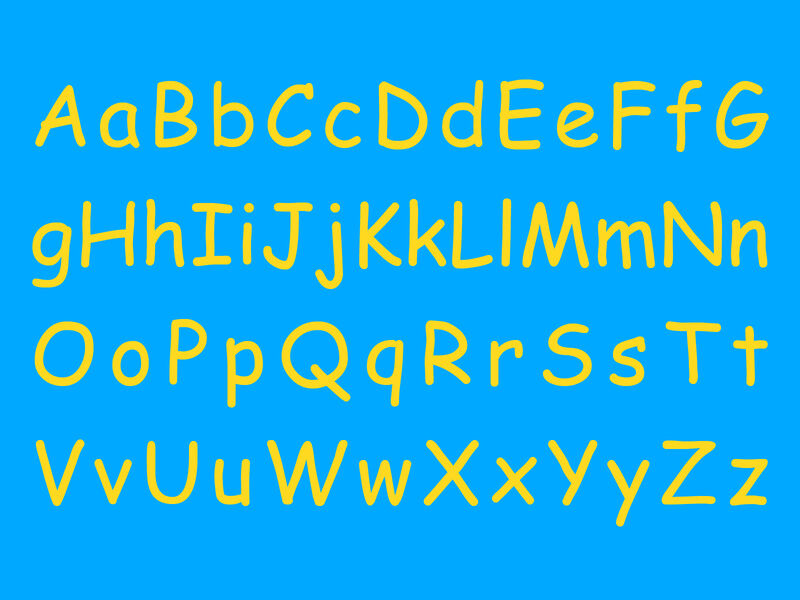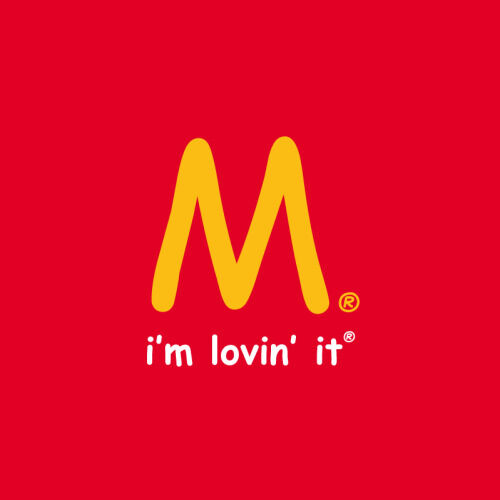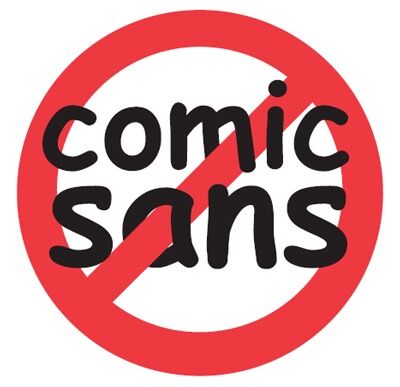
Comic Sans Schriftart
Comic sans schriftart. Comic Sans MS is a sansserif casual script typeface designed by Vincent Connare and released in 1994 by Microsoft CorporationIt is a nonconnecting script inspired by comic book lettering, intended for use in informal documents and children's materials The typeface has been supplied with Microsoft Windows since the introduction of Windows 95, initially as a supplemental font in the Windows. The Comic Sans typeface, one of Microsoft's most popular designs, has received a makeover courtesy of Monotype Imaging The company has introduced the fourfont Comic Sans Pro family of typefaces Featuring elements such as speech bubbles and cartoon dingbats, Comic Sans Pro extends the versatility of the original Comic Sans, designed by Vincent Connare for Microsoft in 1994. Download Wingdings font for PC/Mac for free, take a testdrive and see the entire character set Moreover, you can embed it to your website with @fontface support.
That typeface has more than 2800 meticulously made glyphs spread nonetheless seven beautiful weights from extra light to black And it well created with exceptionally ready sans serif typeface Design Of Comic Sans MS Font The designer has taken the notion from some of the greatest geometric typefaces for growing these exquisite font loved ones. The entire point of Comic Sans is that each letter is totally distinct from the others It’s why people who have dyslexia love this font the irregularlyshaped letters make it easier to break. 4% have severe dyslexia Some fonts have been specifically designed to aid dyslexics, but if you don’t have access to those, Comic Sans is one of the most popular alternatives.
4% have severe dyslexia Some fonts have been specifically designed to aid dyslexics, but if you don’t have access to those, Comic Sans is one of the most popular alternatives. Comic Sans Pro, a typeface good for Tshirt designs Monotype Imaging Comic Sans, the Windows font reviled by font snobs everywhere, has joined the big leagues. Similar free fonts and alternative for Comic Sans MS EMcomicRegular, EMcomicBold, FKR SlurrLife Medium, Attari_Salees, SKElementary, Children Regular, Pro.
Recently, Instagram added to its Stories an option that looks a lot like Comic Sans, a font design people have long derided A campaign to ban the font has been afoot online since 1999 “Using Comic Sans is like turning up to a blacktie event in a clown costume,” the campaign’s cofounder Holly Combs said in an interview But, as Lauren Hudgins argues for the Establishment, the agreed. On this page you can download the font Comic Sans MS version Version 210, which belongs to the family Comic Sans MS (Regular tracing) This font belongs to the following categories cyrillic fonts, decorative fonts, latinic fonts Font size only 123 Kb. Sans Try Not To Laugh Challenge Undertale Comic Dub Compilation Video Production Sans Comic TV Original Talent Artists Shimo25, Eightthekat and Anna.
Making the web more beautiful, fast, and open through great typography. Comic Sans still dominates classrooms with teachers believing it is better for dyslexic students, for reading and for modelling handwriting Jon Severs finds that those benefits are dubious and that so much else we think we know about fonts and readability – even reading itself – is highly problematic. A quick tutorial on how to import custom fonts into TinkerCad.
Comic Sans was created if not as a serious font, then at least a very important one It embodies the spirit of access — approachable, easytoread, inviting you into the fun. We have 244 free comic, bold fonts to offer for direct downloading · 1001 Fonts is your favorite site for free fonts since 01. Comic Sans has been used on a number of wellknown products Beanie Babies have used the font on their tags since the late 1990’s The 04 Canada Day 25cent collector coin also used the font The Sims video game uses it as well The Origin of the Comic Sans Hate.
Ace Sans Font dafontcom English Français Español Deutsch Italiano Português Login Register Themes New fonts Authors Top Forum FAQ Submit a font Tools Ad by Factory738 Ace Sans Custom preview Size Ace Sans by Factory738 in Basic > Sans serif 172,703. The entire point of Comic Sans is that each letter is totally distinct from the others It’s why people who have dyslexia love this font the irregularlyshaped letters make it easier to break. Comic Sans MS is a sansserif casual script typeface designed by Vincent Connare and released in 1994 by Microsoft CorporationIt is a nonconnecting script inspired by comic book lettering, intended for use in informal documents and children's materials The typeface has been supplied with Microsoft Windows since the introduction of Windows 95, initially as a supplemental font in the Windows.
Comic Sans ist hingegen für Legastheniker leichter lesbar Die großen Abstände und die einfachen Buchstaben helfen Menschen mit Leseschwäche die Buchstaben besser zu erkennen Kleiner Fakt am. 2 Comic Sans is not everybody’s cup of tea, in fact, no one’s!. Hier kannst du auf vertraute Serife Schriftarten setzen, wie etwa Times New Roman Bei Sans Serif Schriftarten kannst du relativ wenig falsch machen, da diese sehr schlicht ausfallen Halte dich allerdings lieber von Comic Sans fern, da diese mittlerweile einfach sehr verpönt ist – greif dann lieber zur beliebten Schriftart Helvetica.
Comic Sans rules KO There are practical applications for Comic Sans too Dyslexia is a disability as defined in the Equality Act 10 10% of the population are dyslexic;. Comic Sans still dominates classrooms with teachers believing it is better for dyslexic students, for reading and for modelling handwriting Jon Severs finds that those benefits are dubious and that so much else we think we know about fonts and readability – even reading itself – is highly problematic. Other users also search for comic sans, sansserif, college, art deco, typewriter, varsity Discover a huge collection of fonts and handreviewed graphic assets All the Fonts you need and many other design elements, are available for a monthly subscription by subscribing to Envato Elements.
Comic Sans MS is the groovy script font which was first supplied with the Windows 95 Plus!. With time, the more popular fonts like Arial, Open Sans, etc will hopefully be updated to include many new unicode symbols so that we'll have more usable symbols to play around with, but until then we've just got to make do with what we've got If you know of any other fonts that you want me to add, then please let me know!. How about a lollipop?.